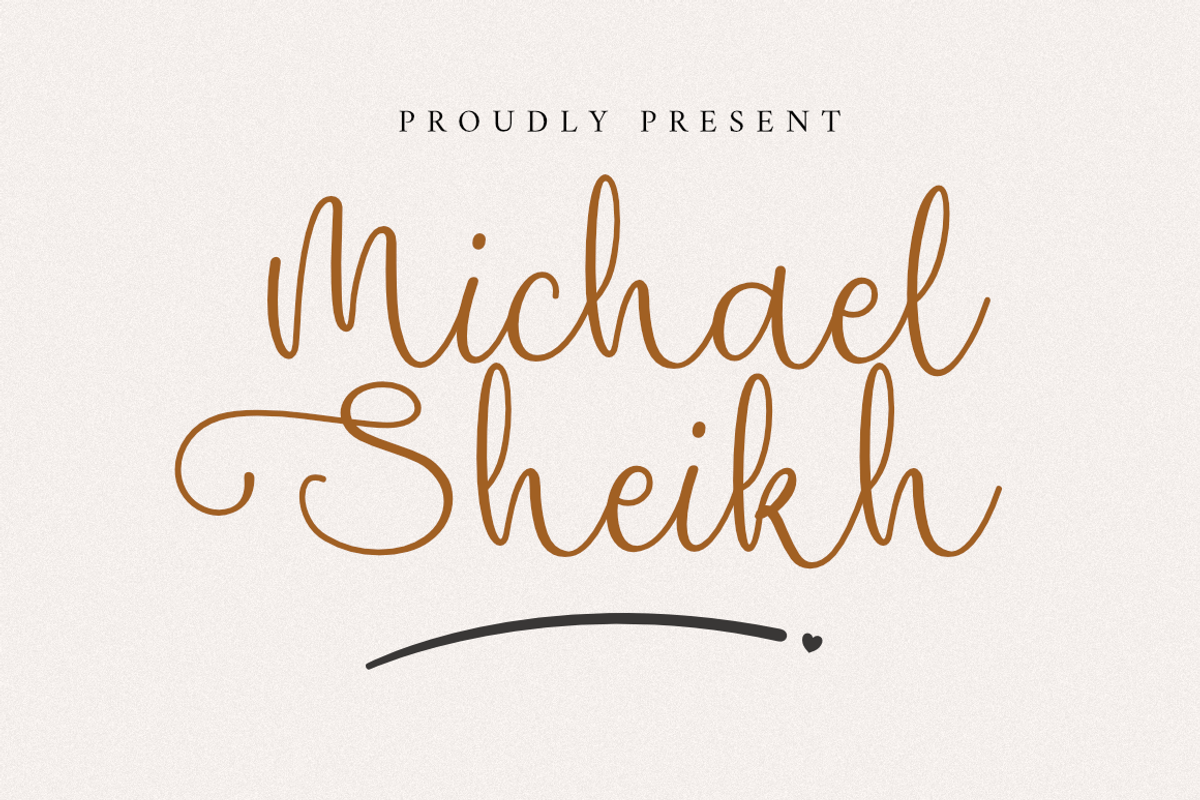
Michael Sheikh Free Download – Elegant Script Font
Michael Sheikh is an elegant script font that combines modern calligraphy with a refined, handwritten touch. Designed for sophistication and flow, this font is perfect for upscale branding, wedding invitations, social media graphics, and signature-style logos. Its graceful curves and smooth strokes make every word feel intentional and beautifully crafted.
With both charm and professionalism, Michael Sheikh stands out in both digital and print designs. It's versatile enough to complement minimalist layouts while still adding personality and flair. Whether you're creating custom designs or building a luxury brand, this font has the detail and polish to elevate your work.